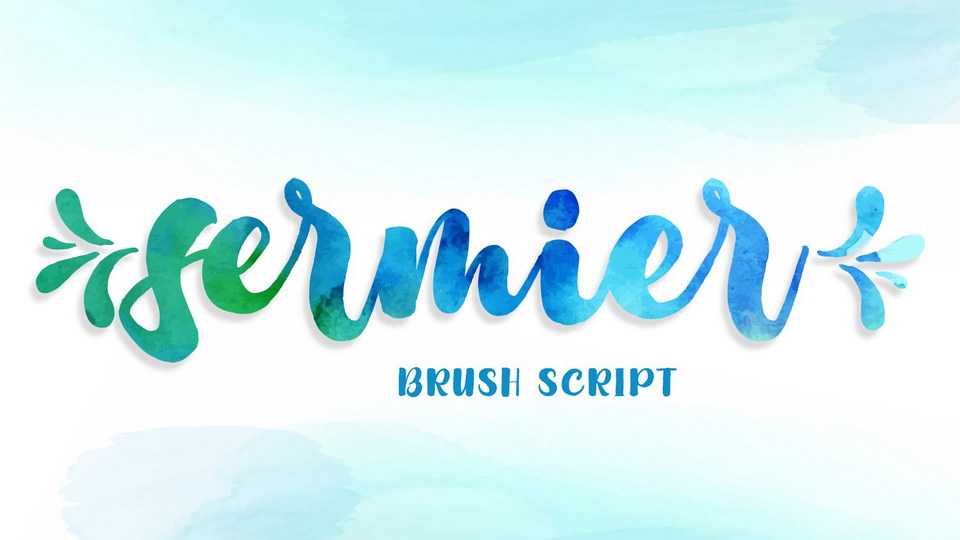
Download Sermier font, a lovely hand painted brush typeface with a natural authentic texture. Sermier will be great for logotypes, posters, digital lettering arts, merchandise, social media.
Designer: Rochart Studio